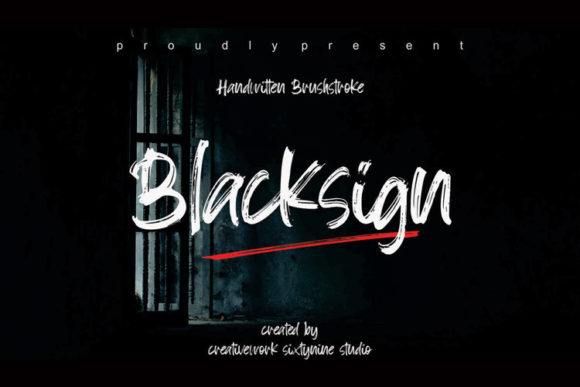
Immerse your digital creations in a symphony of elegance with Blacksign Font, a captivating script font that dances across your designs like a whisper from a bygone era. Its graceful curves, effortless brushstrokes, and undeniable charm will ignite your imagination and empower you to craft masterpieces that resonate deeply with your audience.
With Blacksign Font, you'll transcend the ordinary and embrace the extraordinary. Whether you're designing a breathtaking website, crafting an enchanting invitation, or adding a touch of timeless beauty to your social media posts, this font will elevate your creations to new heights. Its enchanting strokes will weave a spell on your viewers, captivating their attention and leaving an unforgettable impression.
Beyond its aesthetic allure, Blacksign Font is a versatile workhorse that will seamlessly complement any design vision. Its malleability allows it to adapt effortlessly to a myriad of styles, from classic and sophisticated to modern and edgy. Whether you're a seasoned designer or just starting your creative journey, Blacksign Font will become your trusted companion, empowering you to unleash your full potential.